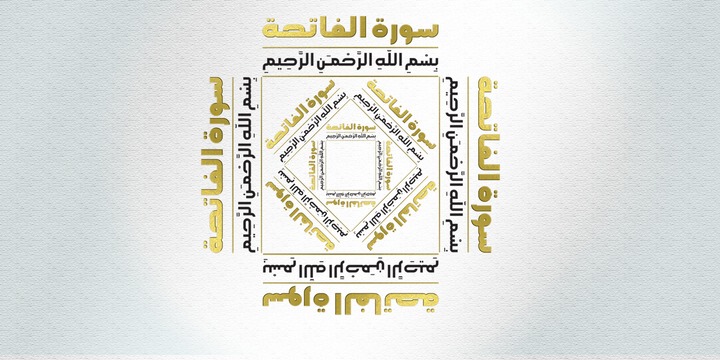
Iranica Font
Iranica Font is perfect for various design applications including Persian restaurant branding, Iranian cultural center signage, Persian language publications, Middle Eastern heritage celebrations, Persian poetry book covers, Iranian art gallery exhibitions, Persian calligraphy workshop materials, traditional Persian carpet shop displays, Iranian cultural festival graphics, and authentic Persian lifestyle brand identities. This elegant typeface excels in projects requiring Persian authenticity and Iranian cultural sophistication that captures the poetic beauty and artistic heritage of Persian civilization and Iranian traditions.
What makes Iranica Font so exciting is its graceful embodiment of Persian cultural elegance and Iranian artistic sophistication through letterforms that suggest the flowing beauty of Persian calligraphy and the refined traditions of Iranian artistic heritage. The font features elegant flowing construction that mirrors traditional Persian script writing, refined proportions that communicate cultural sophistication and poetic sensibility, and distinctive character details that evoke illuminated Persian manuscripts and the artistic mastery of traditional Iranian scribes. Its distinctive cultural character and Persian appeal make it perfect for Iranian brands seeking to communicate authenticity, tradition, and the timeless elegance of Persian culture and Iranian artistic traditions.
Iranica Font family includes elegant weights and cultural variations that enhance its versatility for different Persian applications. Each style maintains the font's signature cultural character while providing options for various Iranian design approaches. The family also features Persian-inspired decorative elements, Iranian cultural flourishes, and traditional ornaments that can be combined with the letterforms to create cohesive Persian heritage design systems.
Whether you're developing Persian cultural brands, Iranian heritage projects, or Middle Eastern communications, Iranica Font Free Download provides authentic typography that honors the rich traditions of Persian culture and celebrates the artistic beauty of Iranian calligraphy and Persian literary heritage. This typeface transforms ordinary communications into cultural expressions that promise authentic Persian experiences and Iranian sophistication. The font's cultural appeal makes it particularly effective for Persian restaurants, Iranian cultural organizations, and heritage institutions targeting audiences who appreciate Persian culture and Iranian artistic traditions.
Iranica Font stands out by delivering genuine Persian cultural authenticity that feels respectfully connected to real Iranian traditions rather than superficial Middle Eastern styling. Its carefully crafted cultural proportions and traditional details ensure that designs feel authentically connected to Persian heritage and Iranian artistic traditions. From Persian cultural center branding to Iranian heritage materials, this font provides designers with tools to create communications that celebrate Persian culture and inspire appreciation for Iranian heritage through elegant, culturally-inspired typography that honors the poetic beauty of Persian artistic traditions and Iranian cultural sophistication.